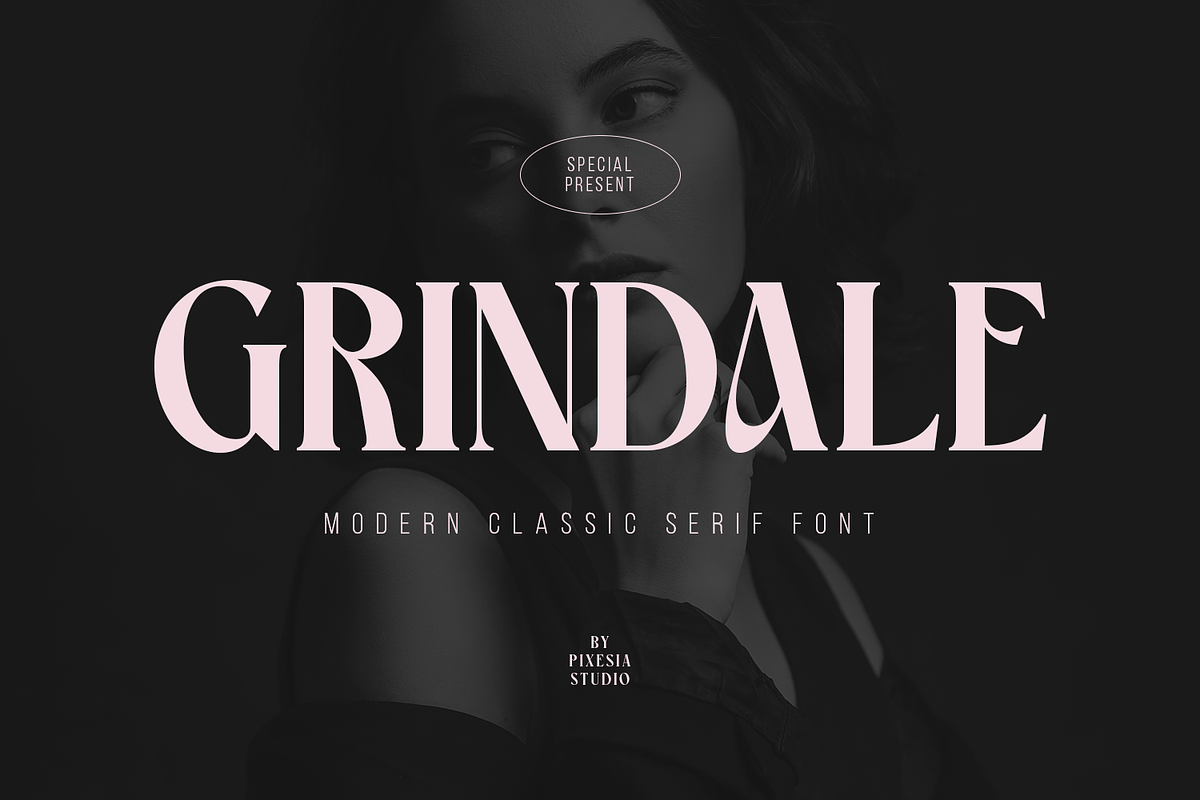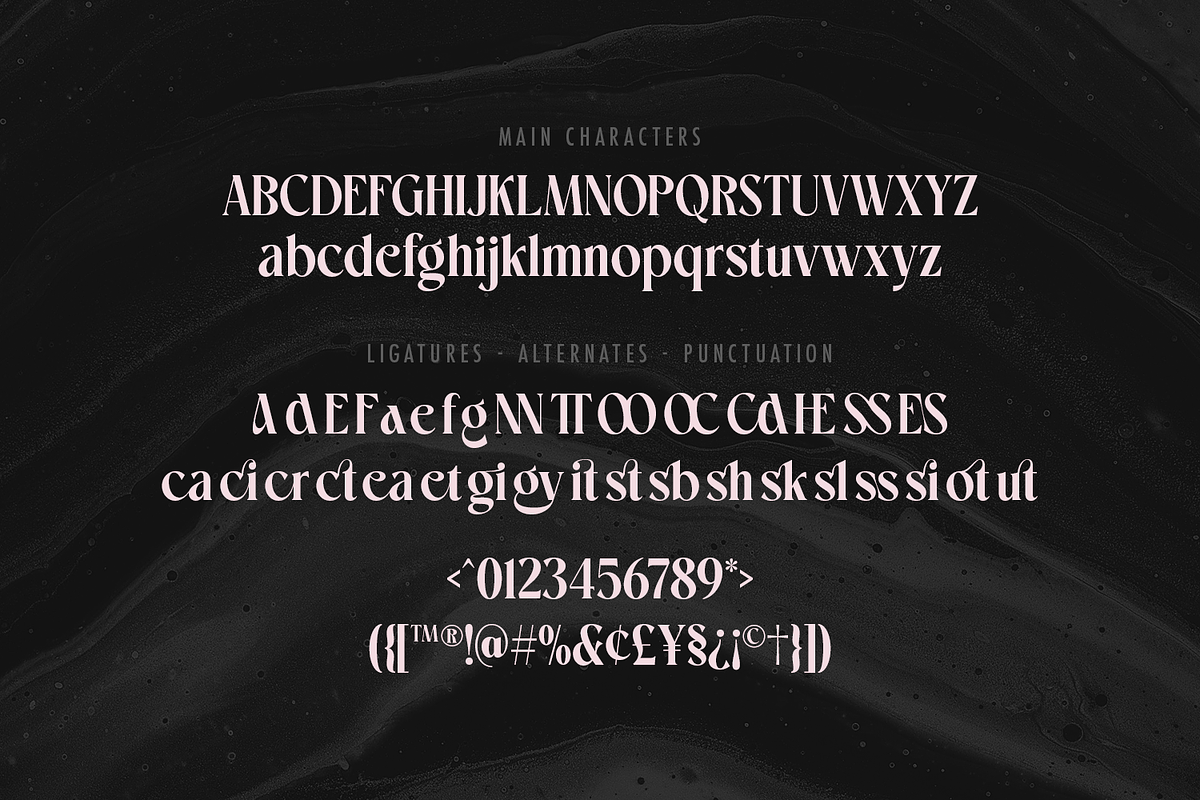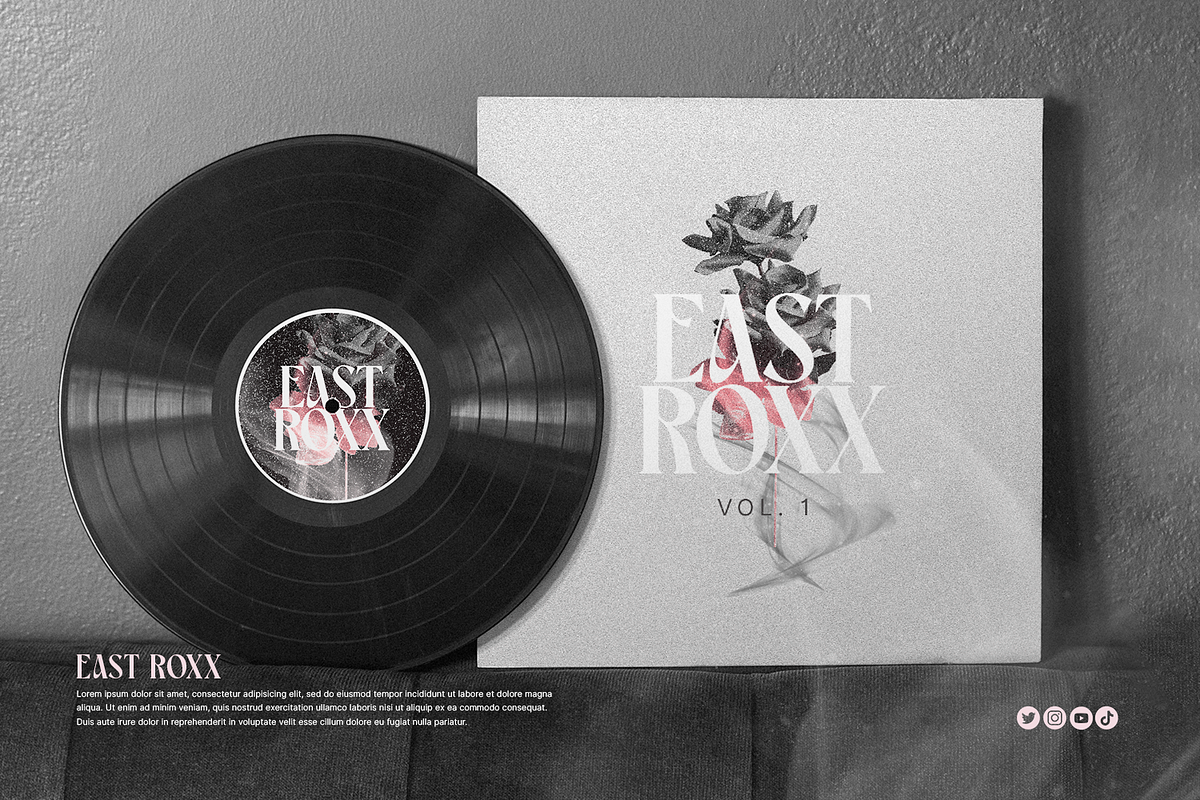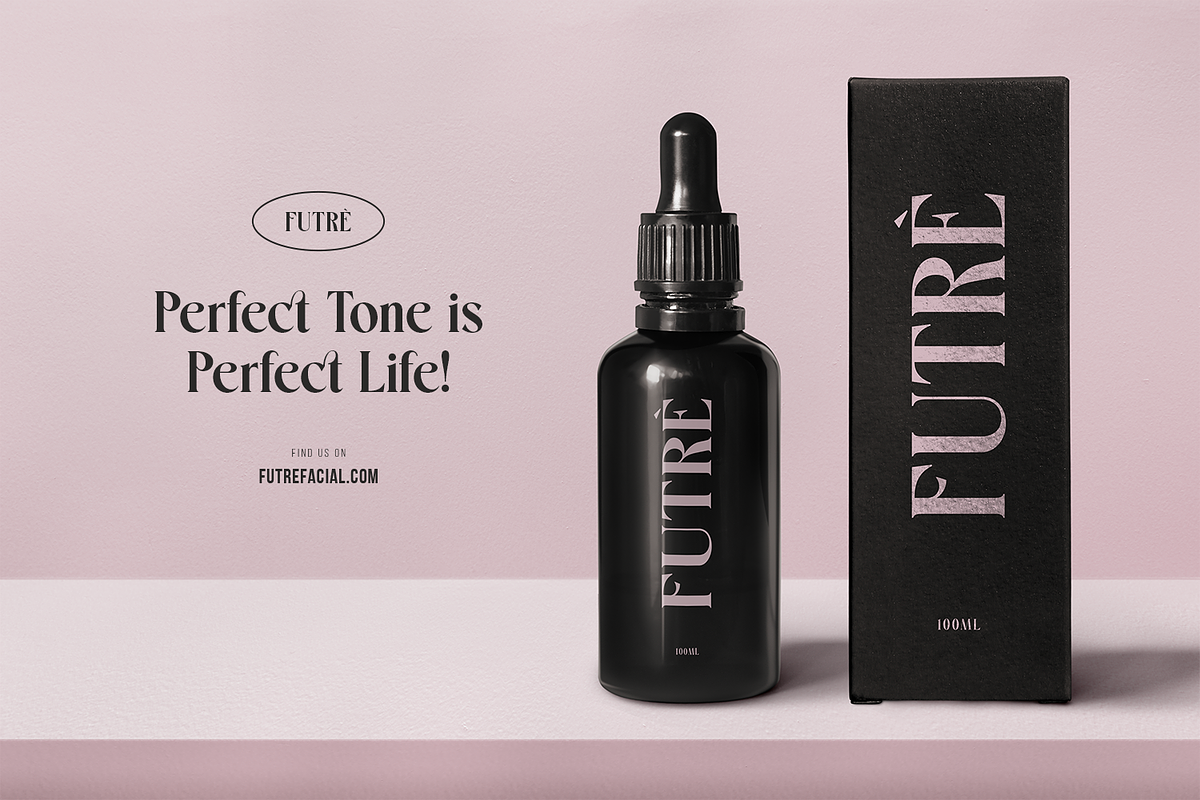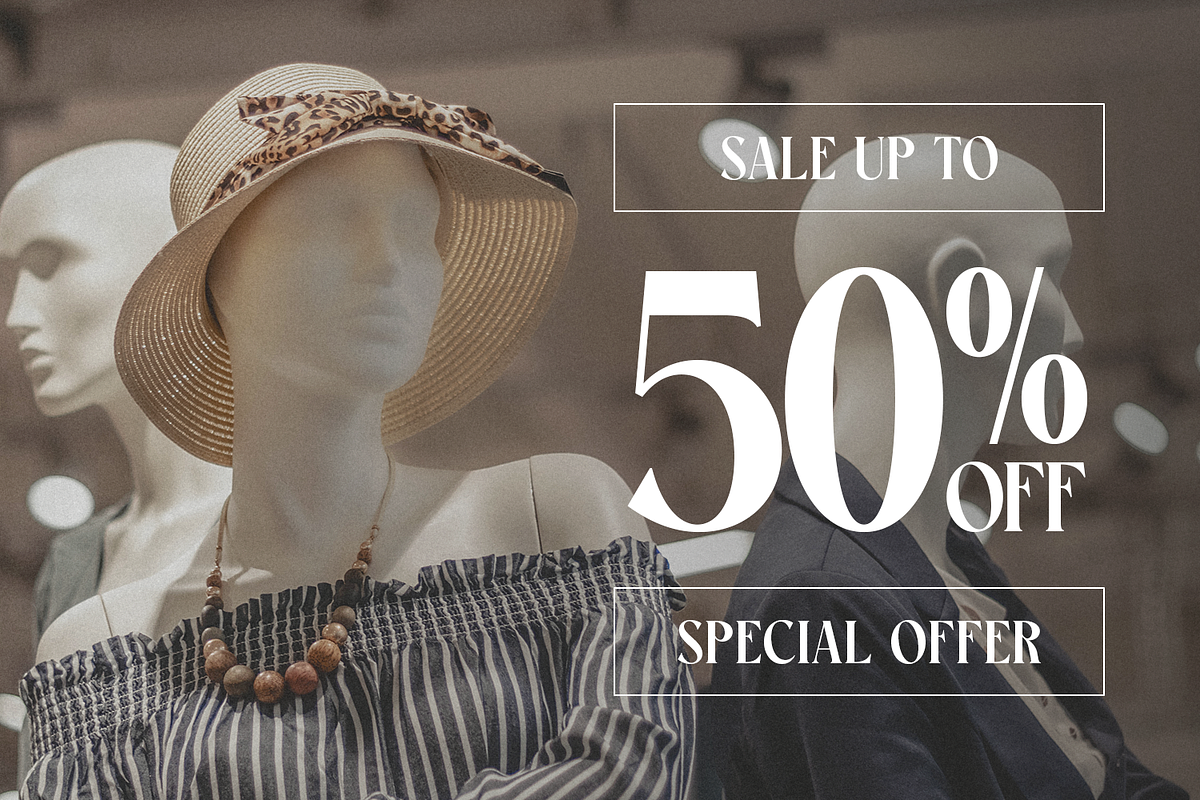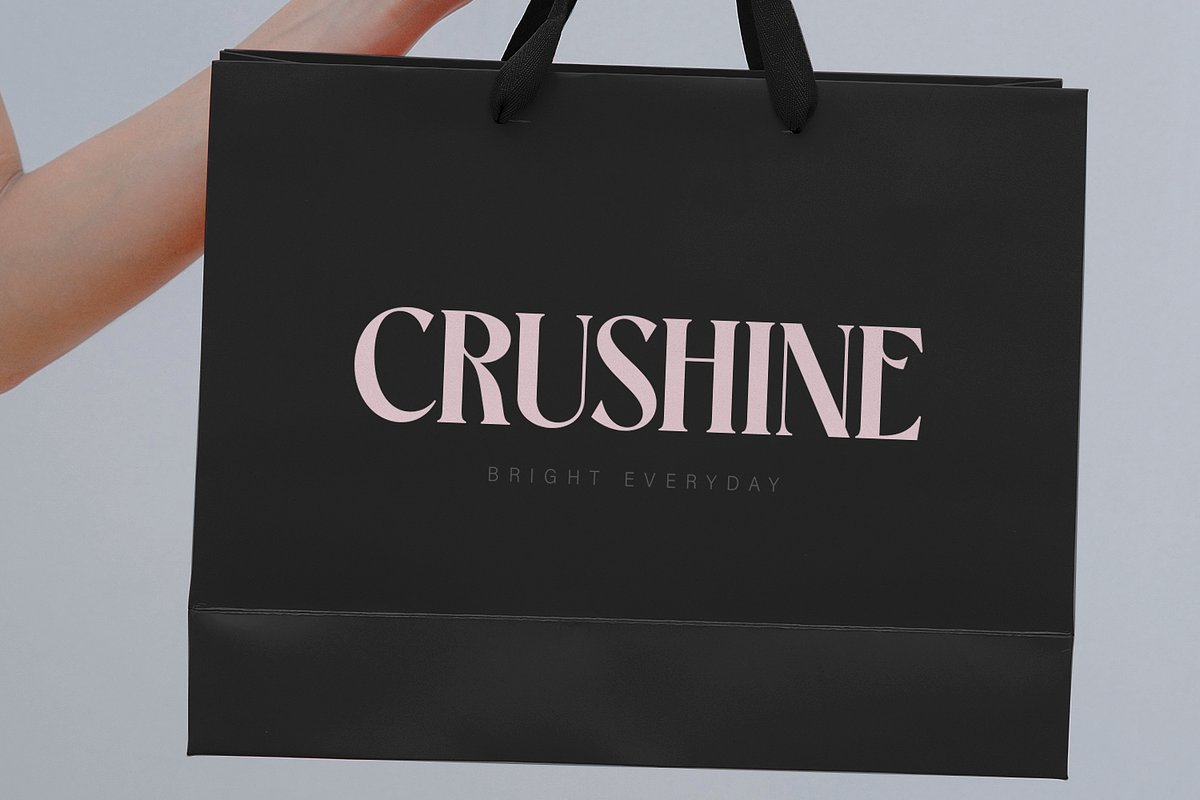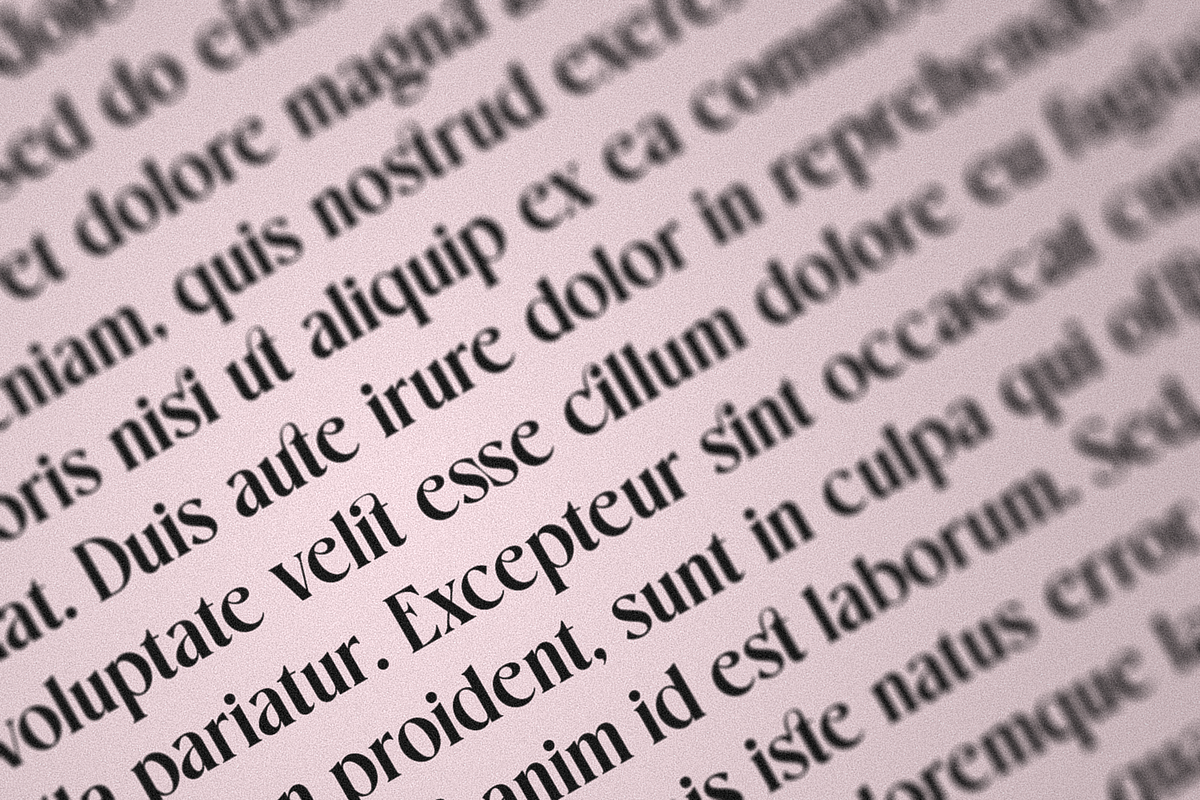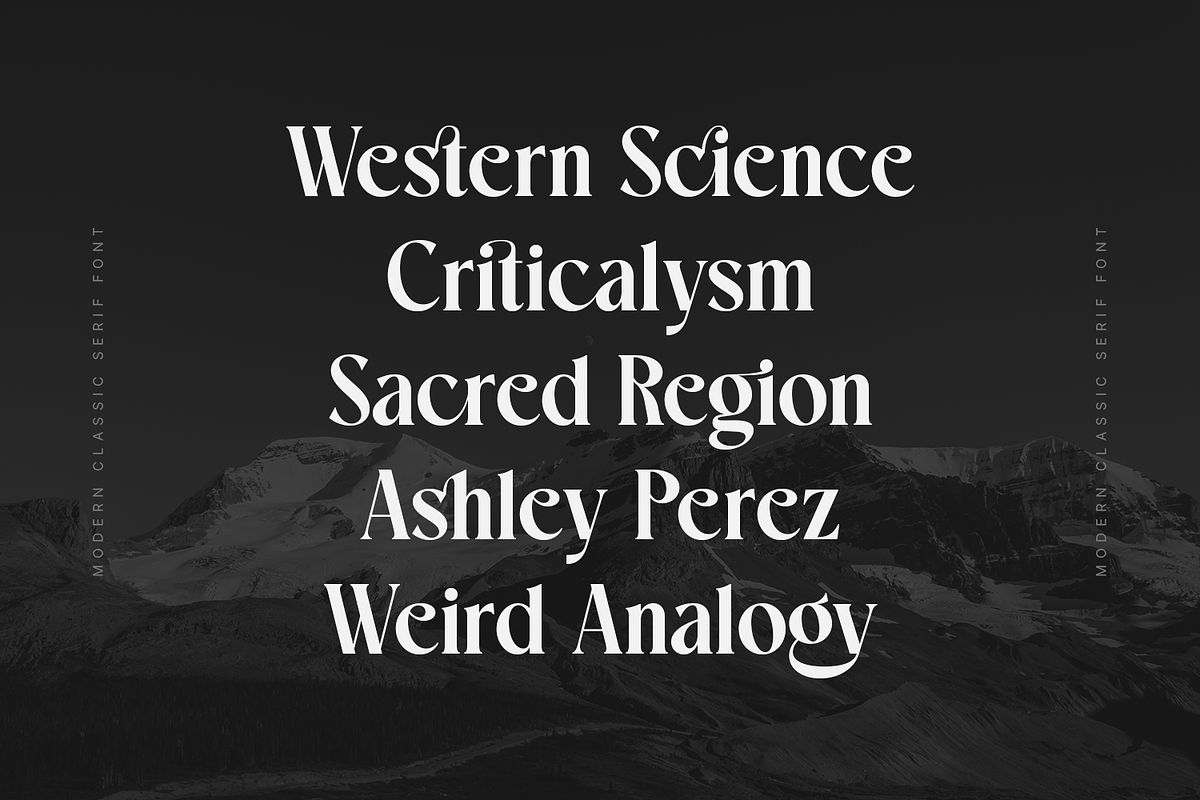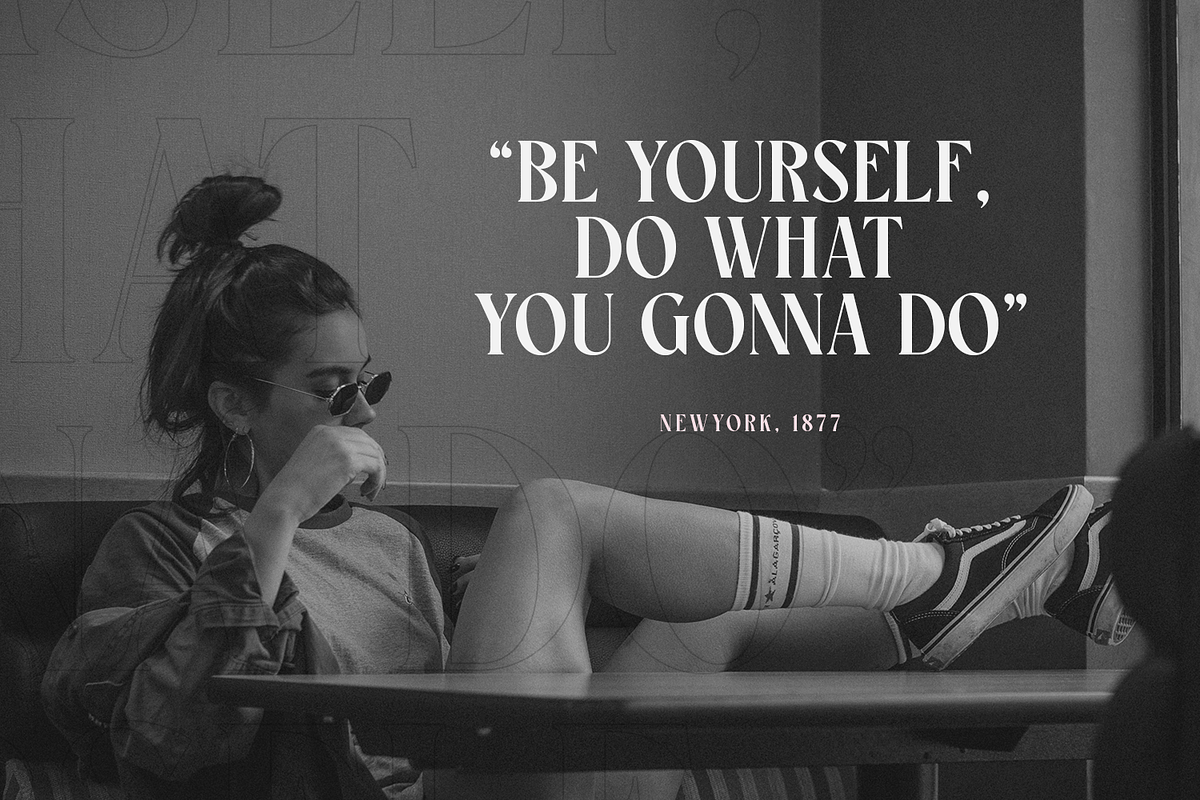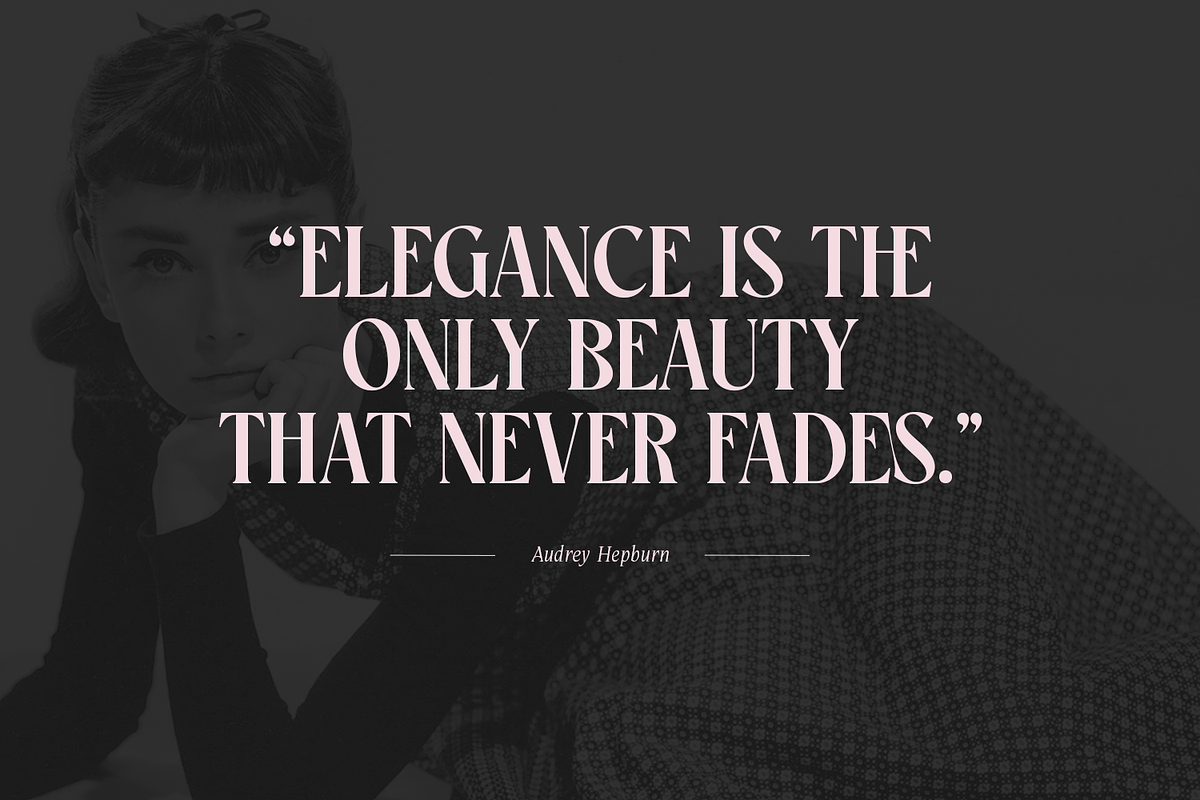
Grindale - Modern Classic Serif Font
Introducing Grindale - Modern Classic Serif Font
Grindale is a modern take on the classic serif font that combines timeless elegance with a contemporary edge. This font is perfect for creating elegant headlines, logos, and other design elements that demand attention. With its clean lines and classic serifs, Grindale is a versatile font that will add a touch of sophistication to any project. Its modern design makes it a great choice for a wide range of projects, from branding and advertising to editorial design and more. With its extensive character set and support for multiple languages, Grindale is a valuable tool for any designer looking to add a touch of elegance to their work. Try Grindale today!